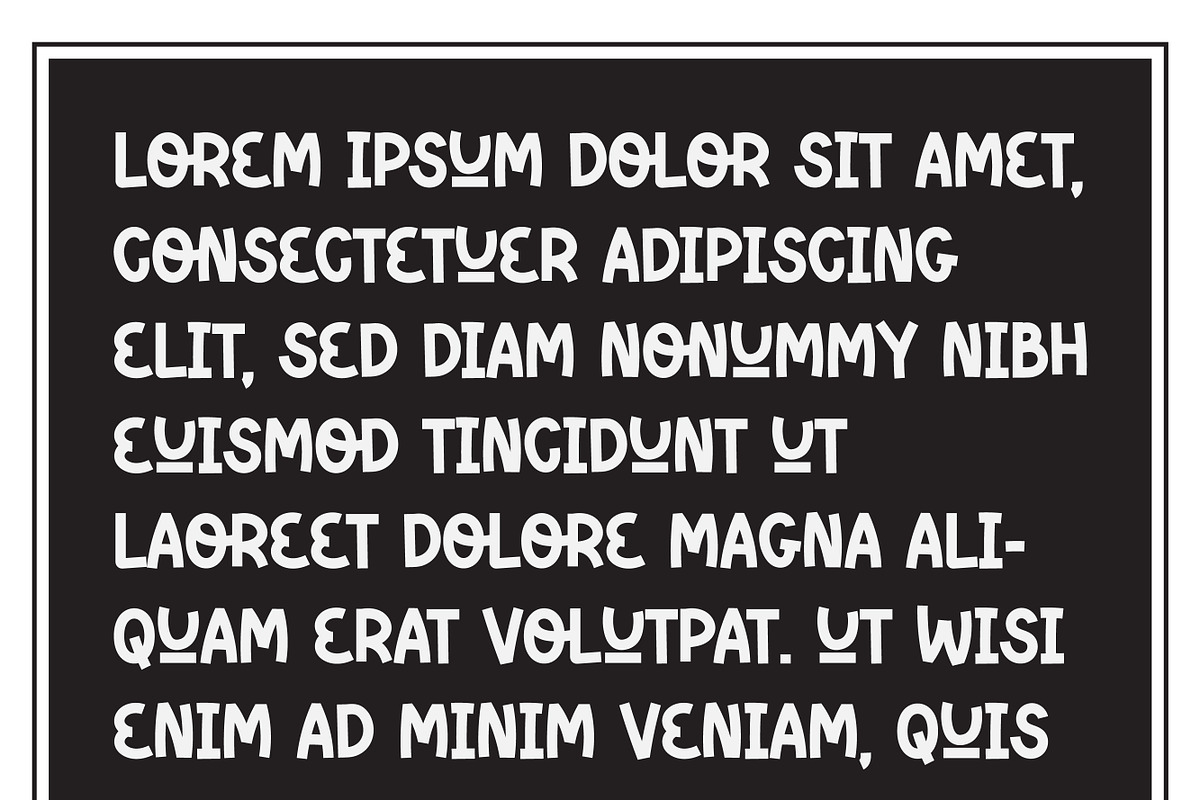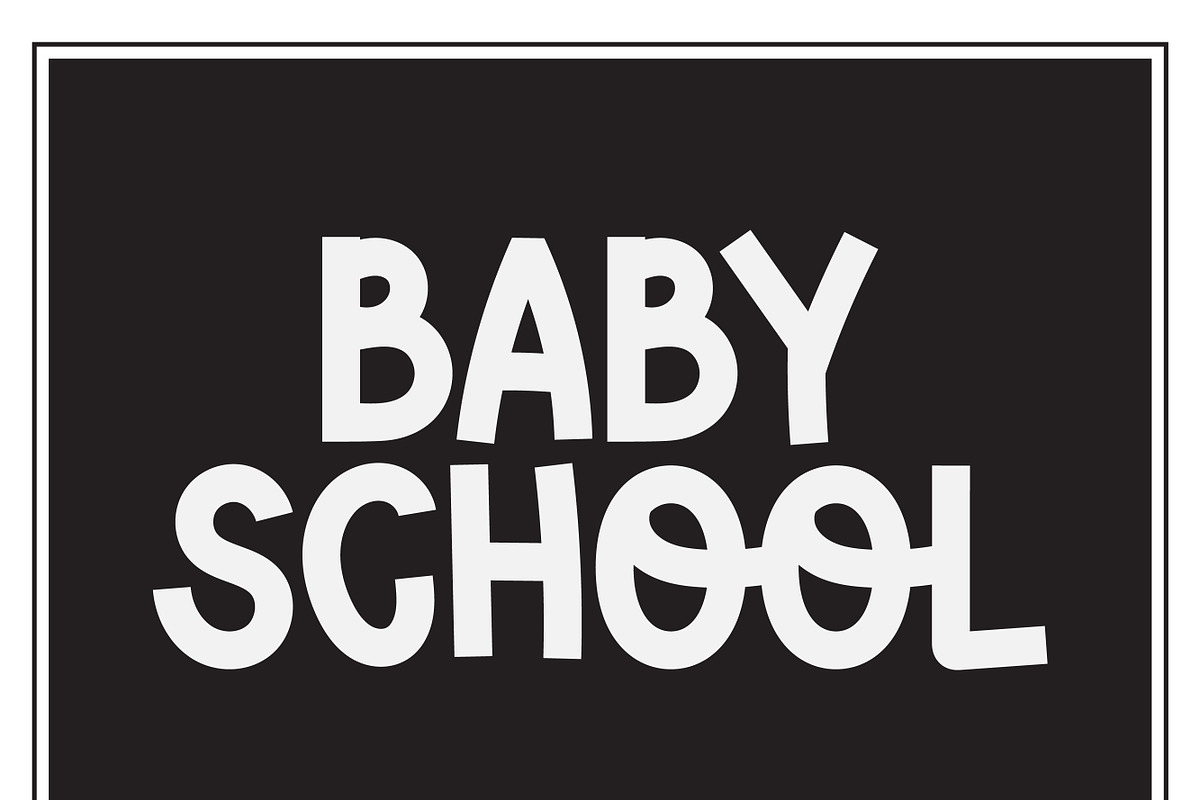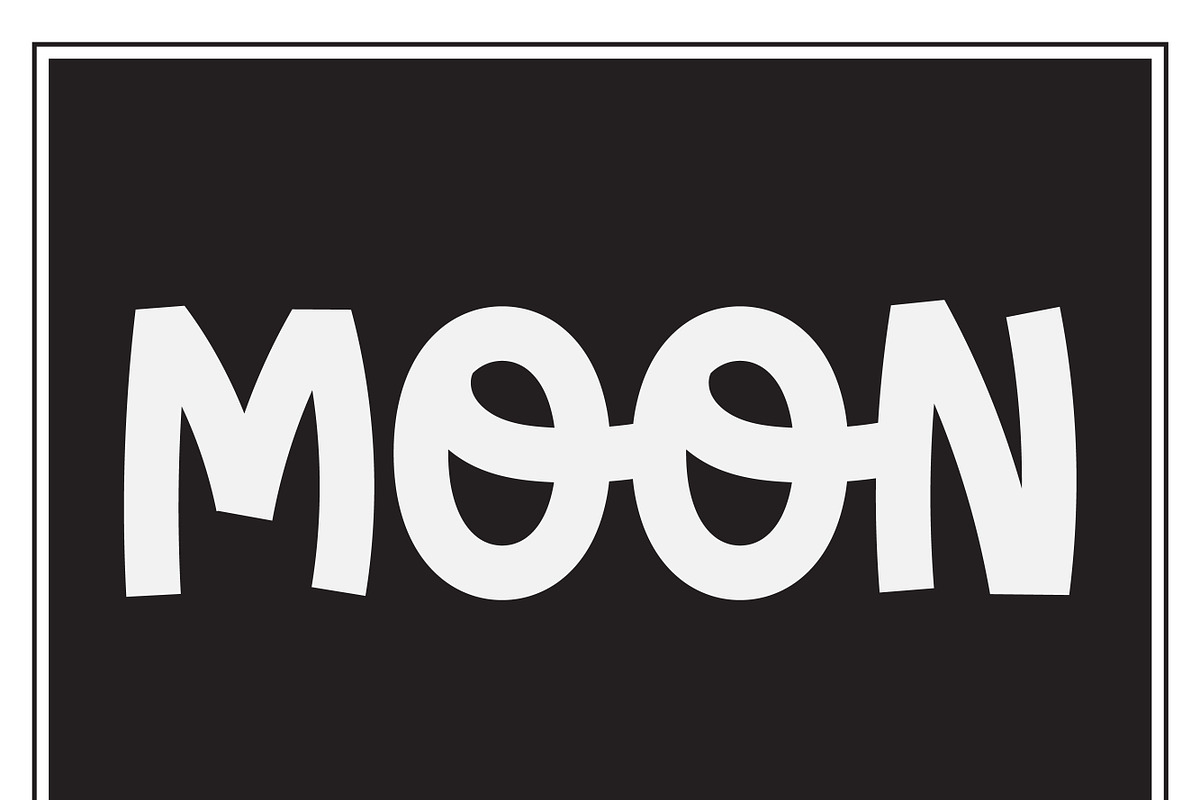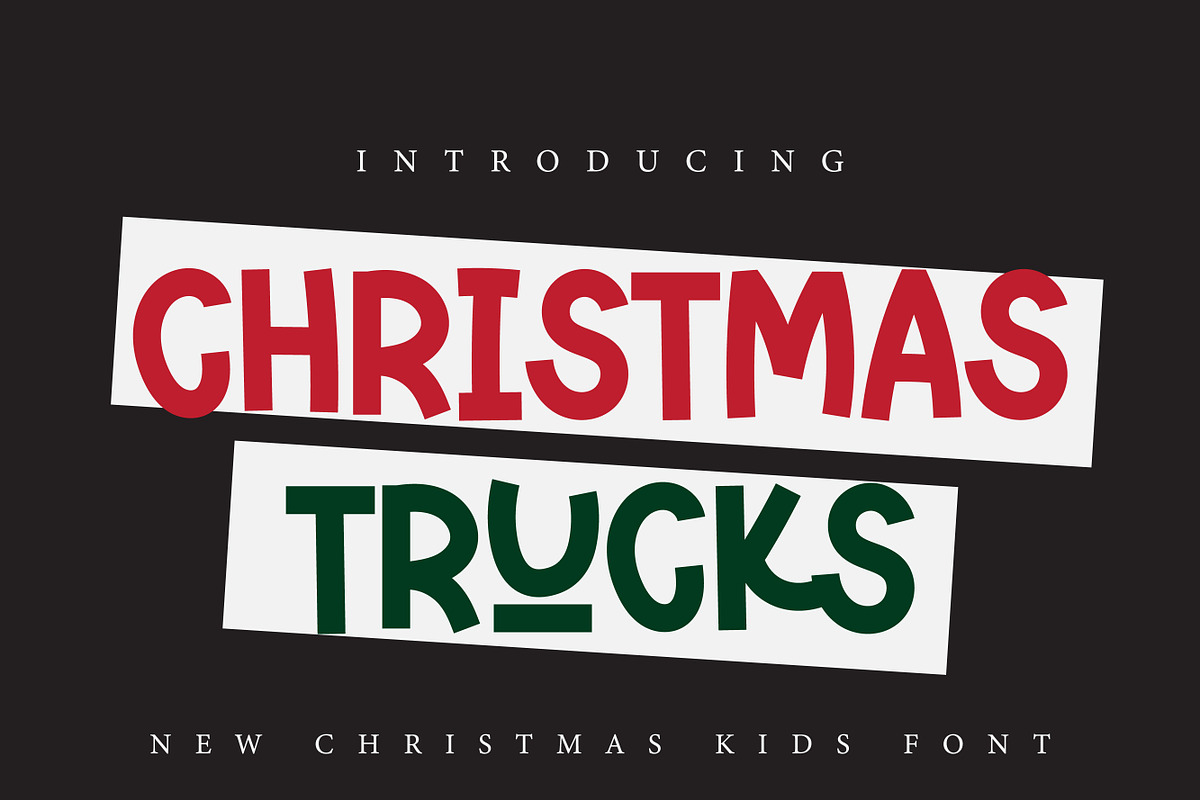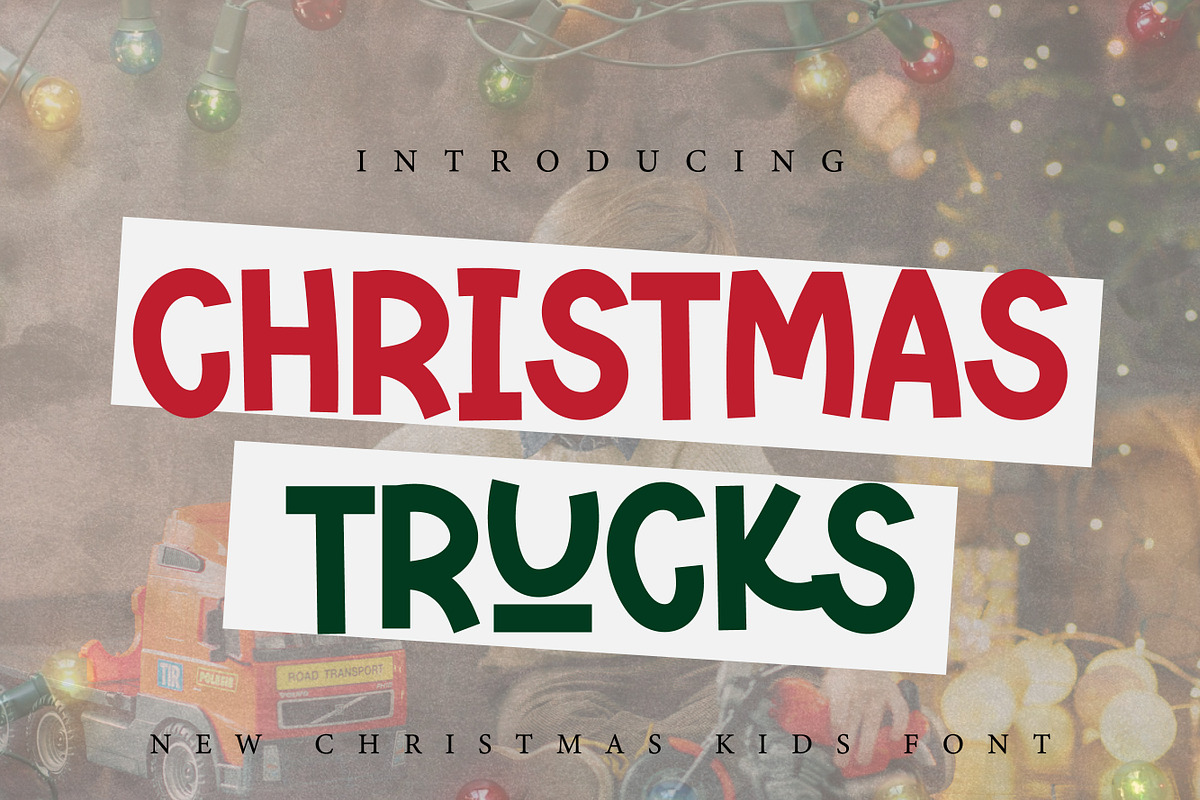
Christmas Trucks - Holiday Design
Christmas Trucks Font is a festive and merry typeface that captures the spirit of the holiday season. It looks stunning on wedding invitations, Christmas trucks, Christmas kids, thank you cards, quotes, greeting cards, logos, business cards and every other design which needs a handwritten touch. Experience the tangible festive vibe wrapped in this delightful font, ideal for all your holiday crafts and merriments.